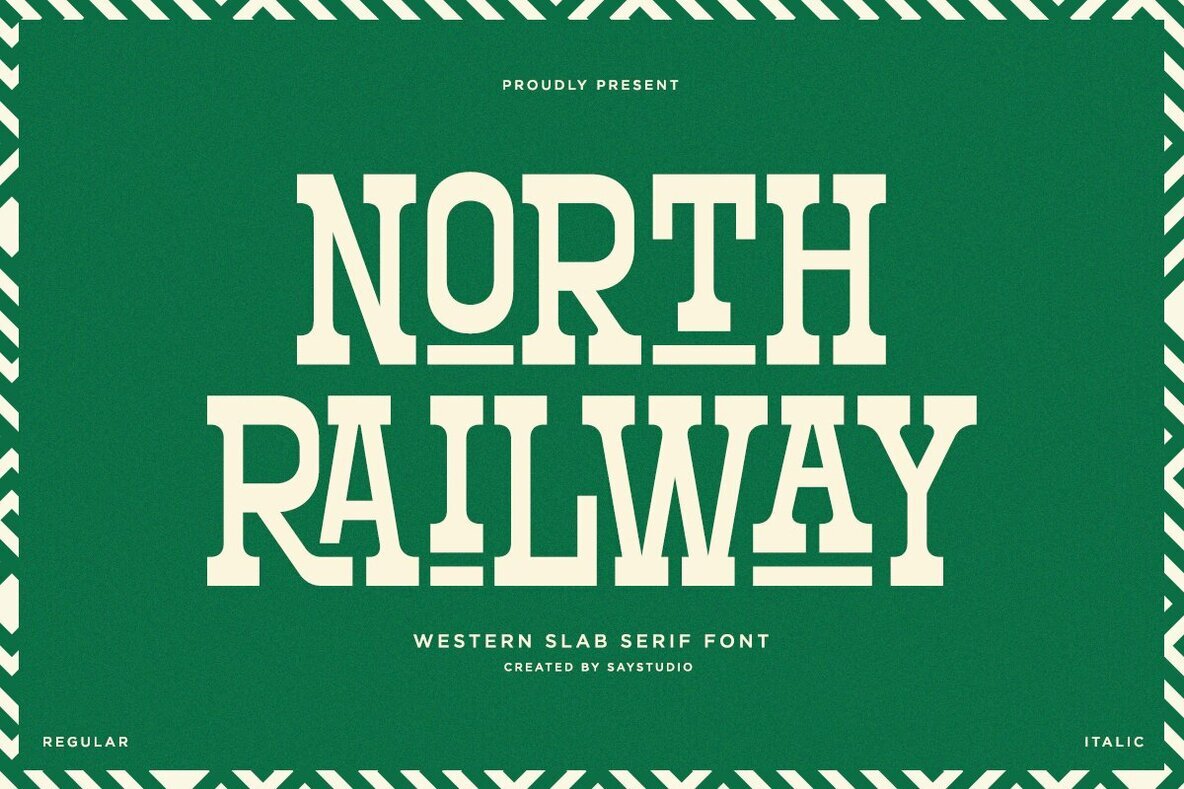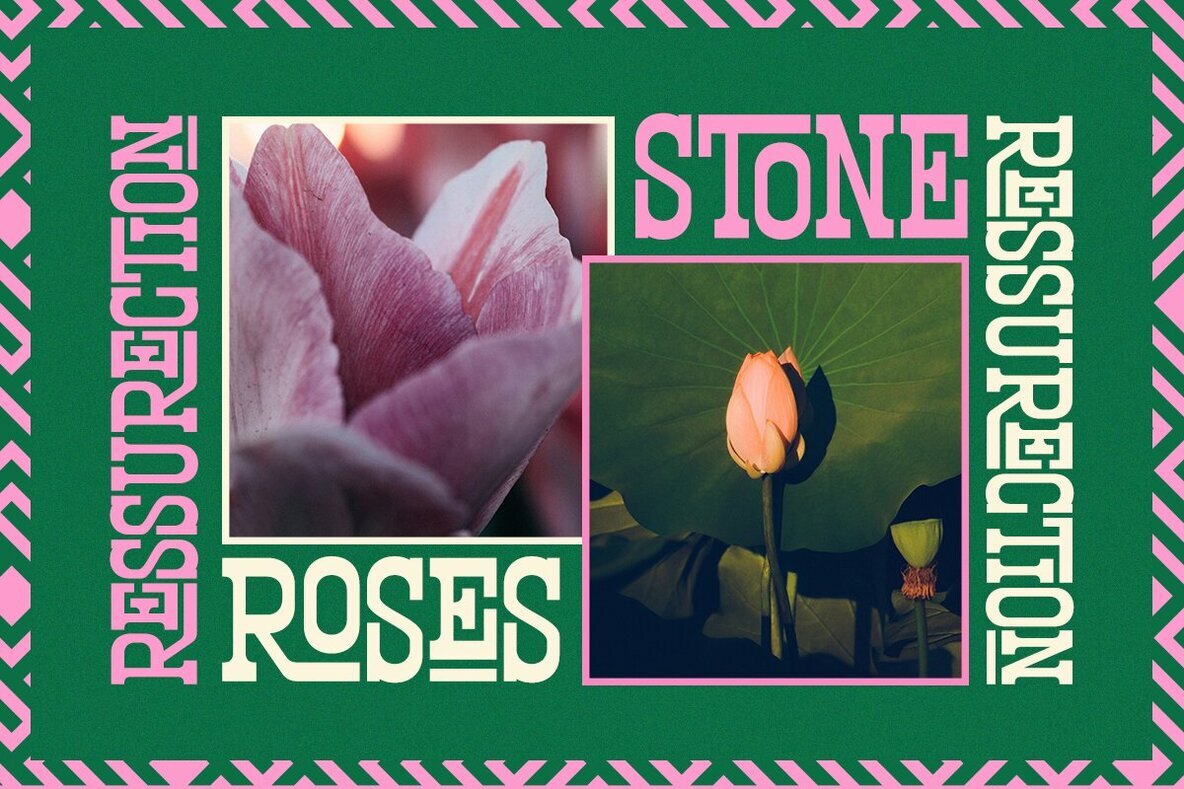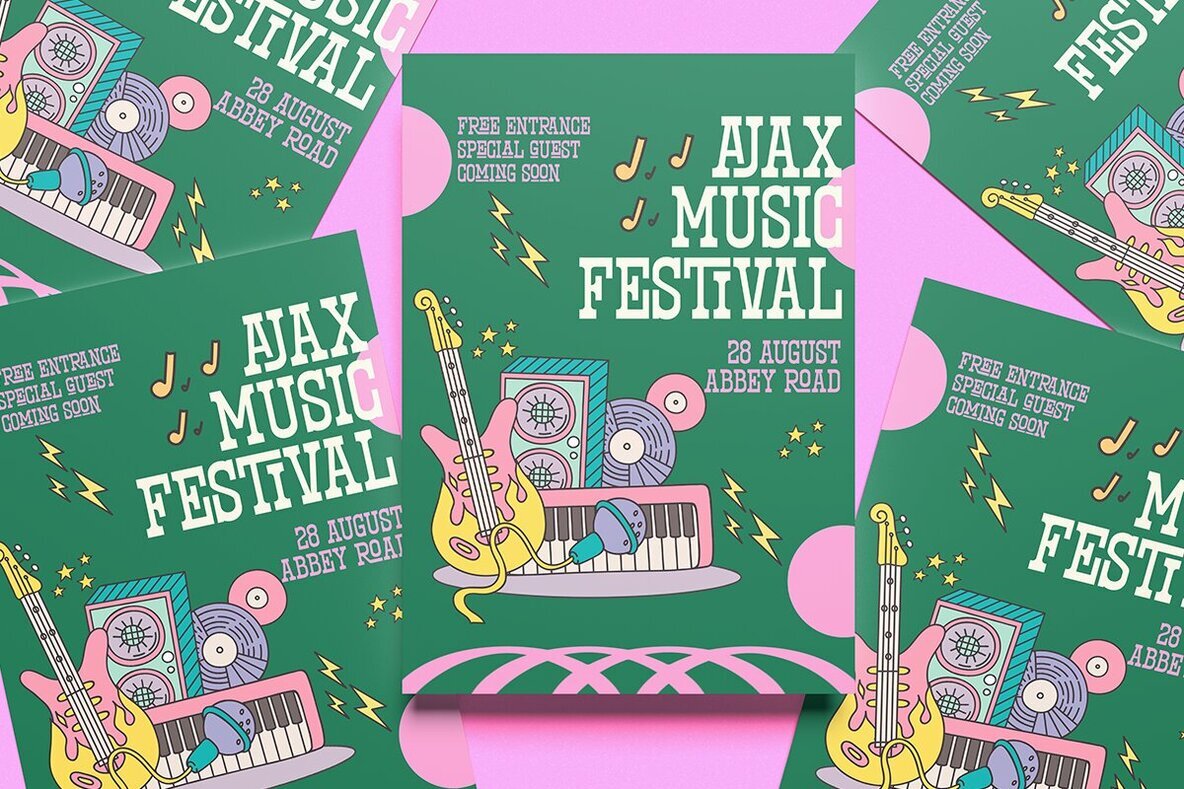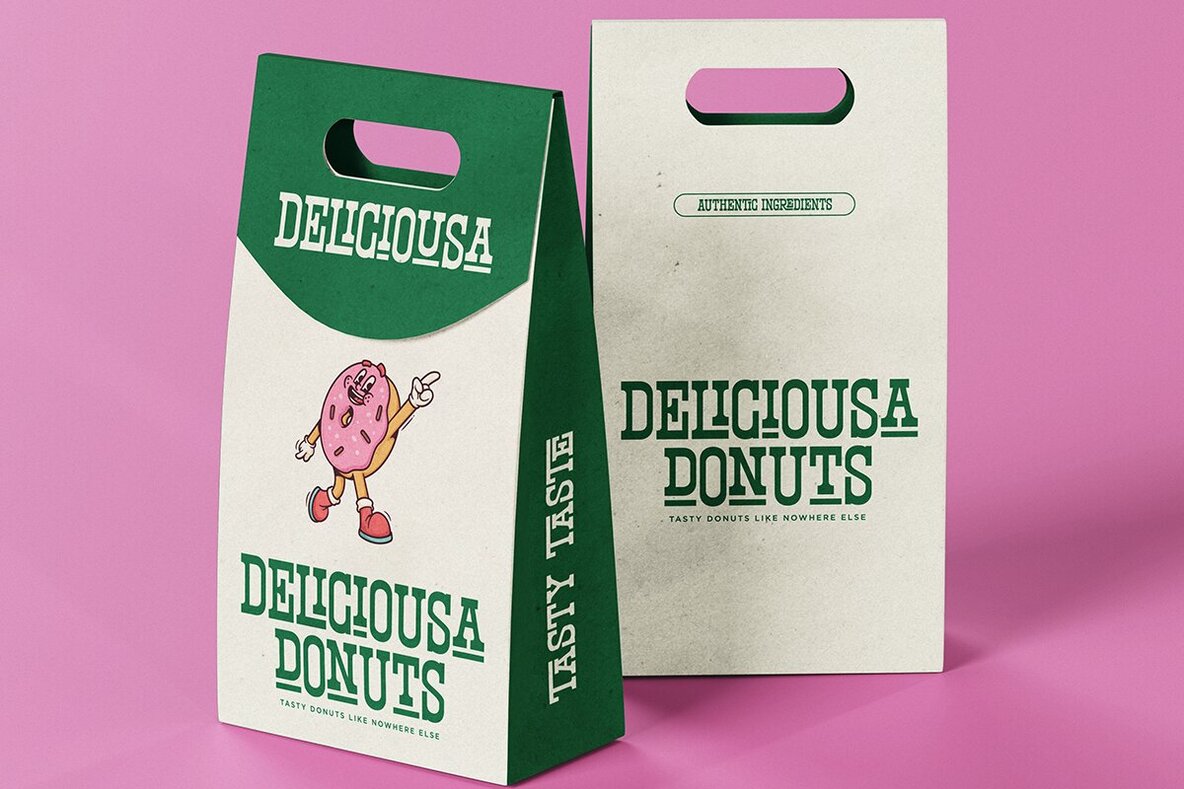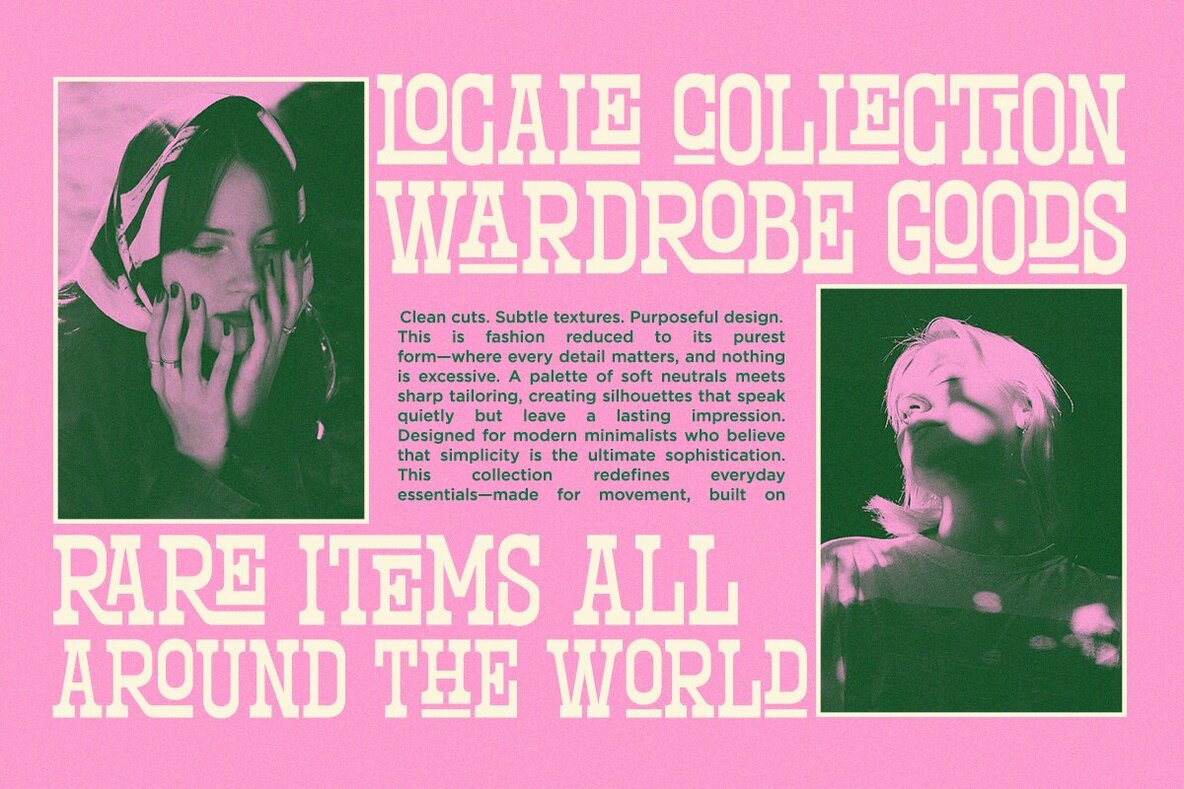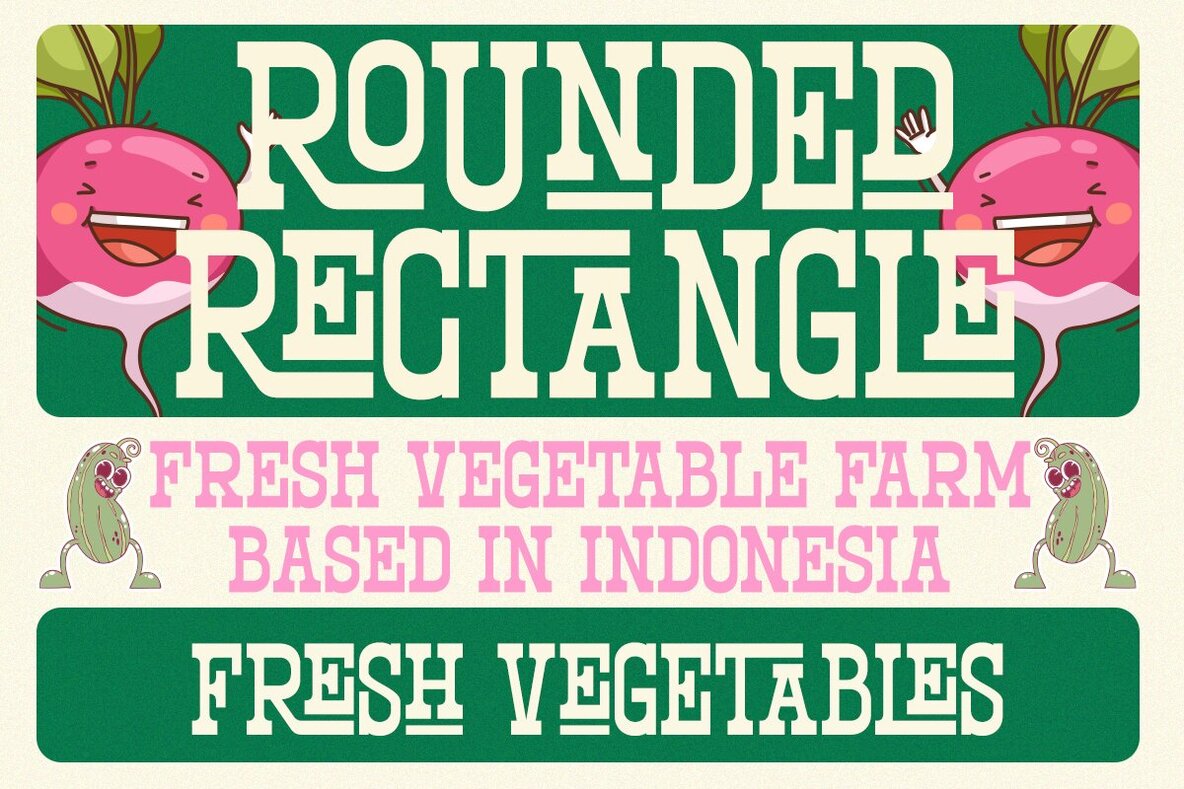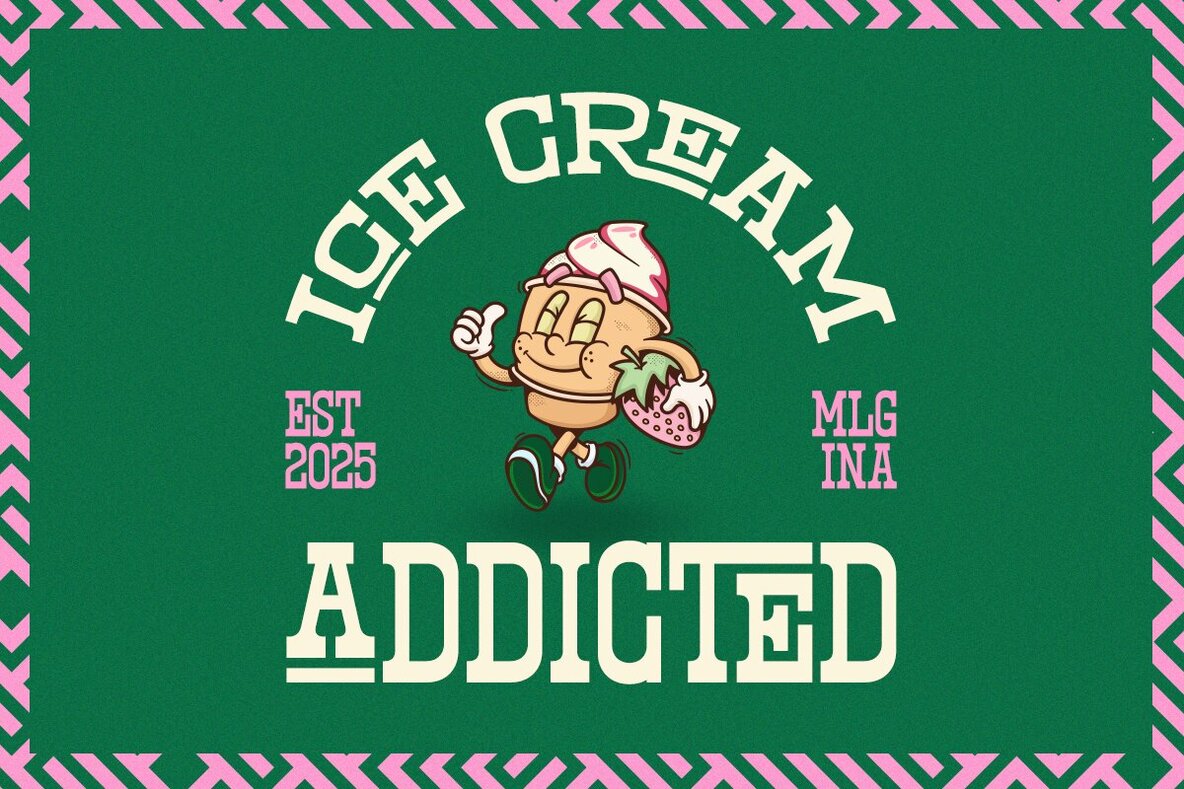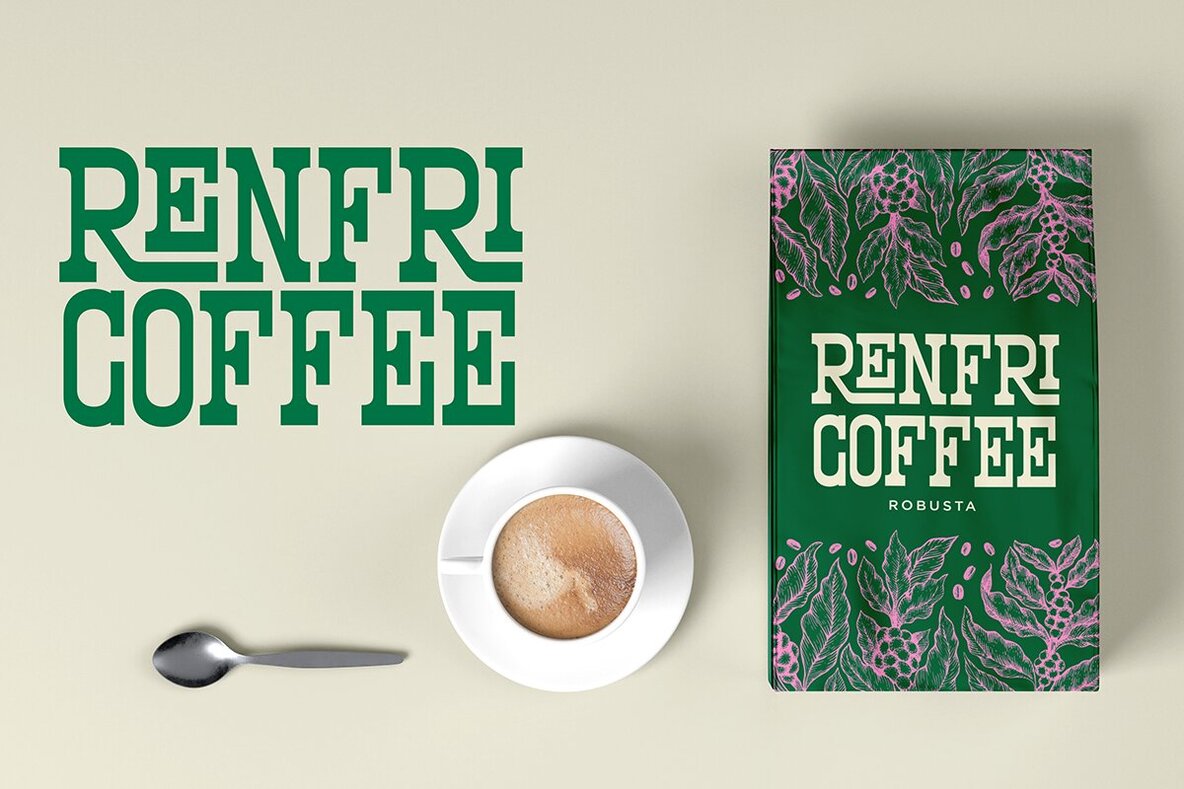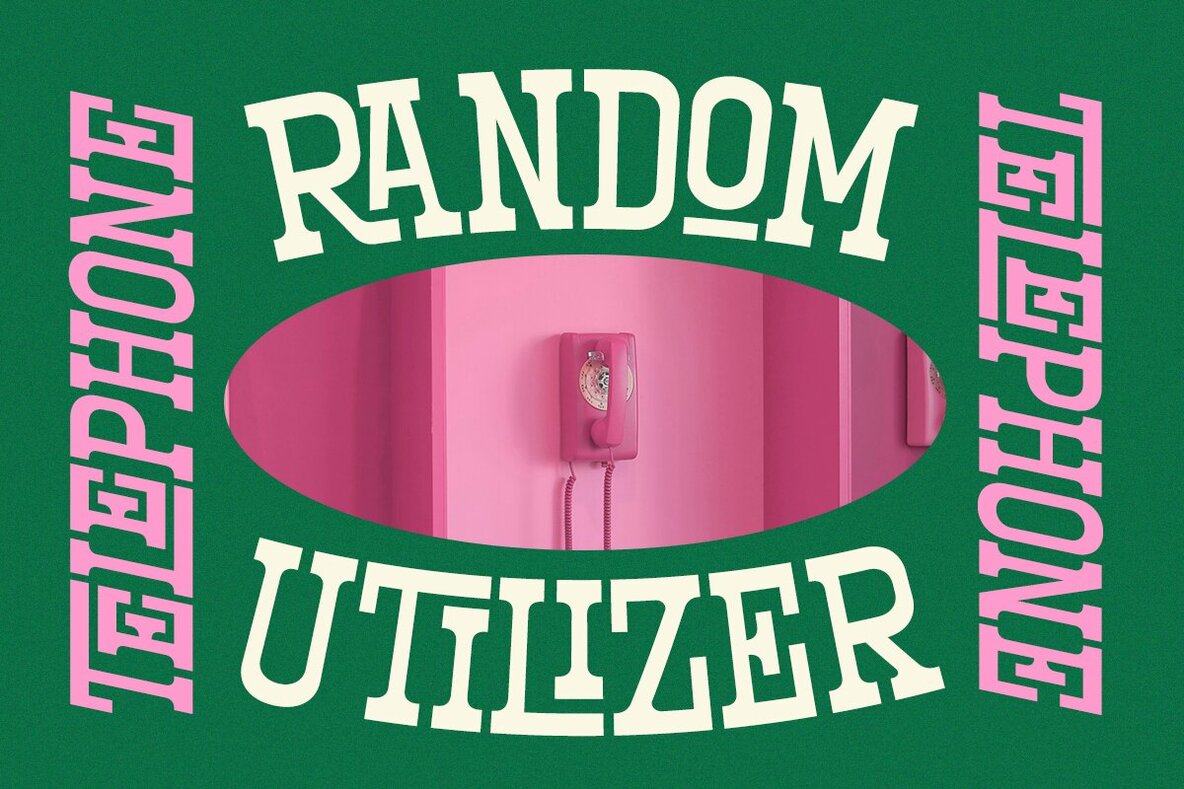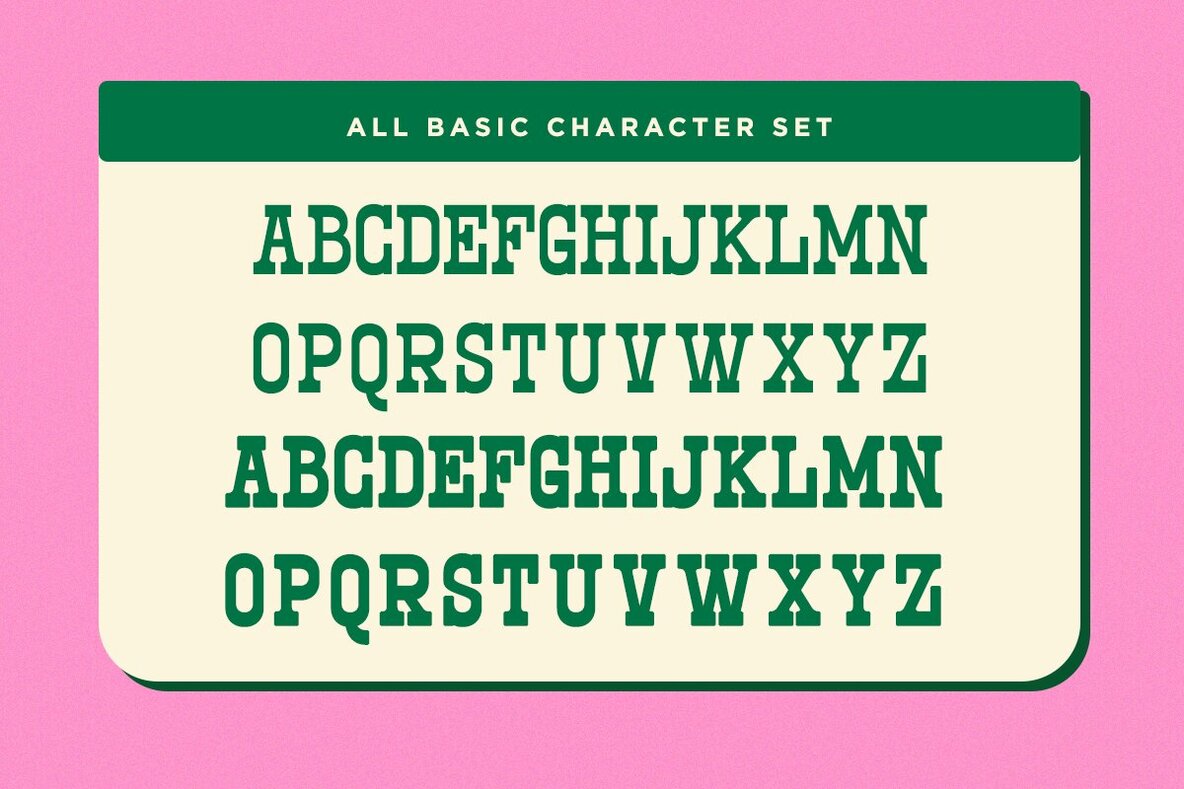
North Railway Font
North Railway captures the lively spirit of the 80s and 90s with a distinctive slab serif style that feels fresh, not overly nostalgic. Its clean lines and playful curves give your projects a retro edge while remaining approachable for modern applications. Delivering just the right balance between personality and versatility, this font is well suited for sticker designs, t-shirts, food branding, or artwork inspired by smiley themes and vintage cartoons. Available in both Regular and Italic, North Railway offers the flexibility needed for creative and professional work alike. The robust language support and complete character set make it practical for global projects and clear brand messaging. Whether you're working on informal visual stories or seeking a unique formal typographic voice, North Railway adapts seamlessly to your design vision.North Railway Slab Serif Font